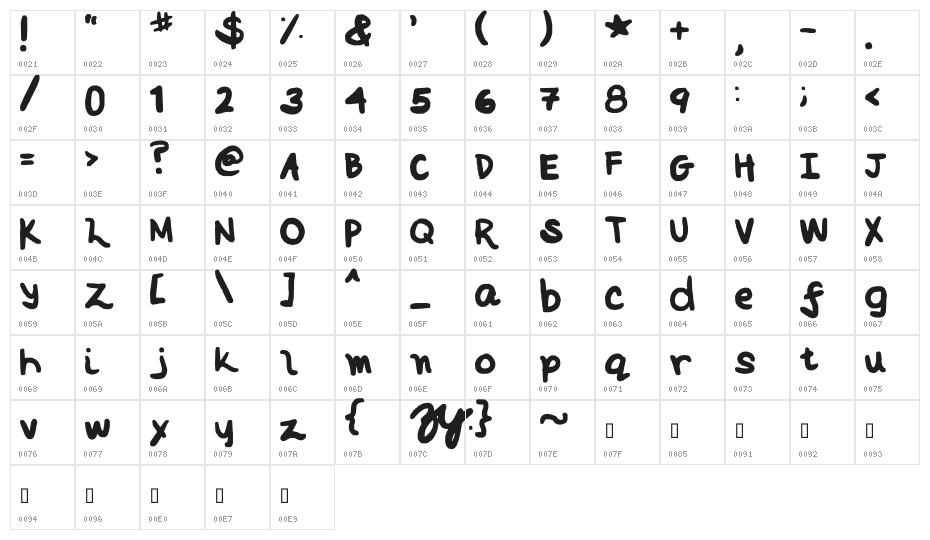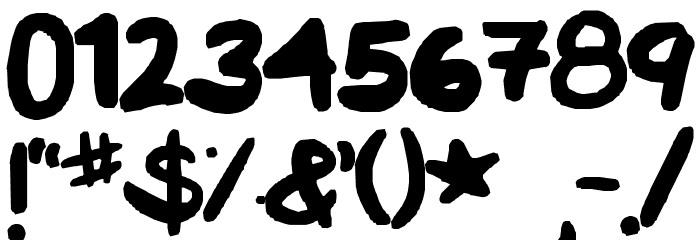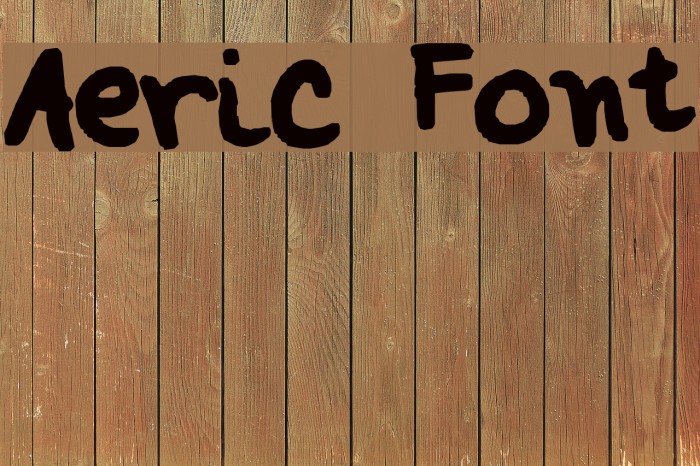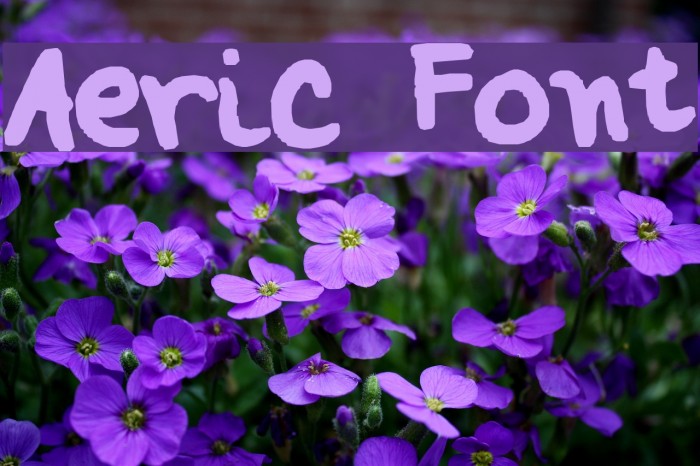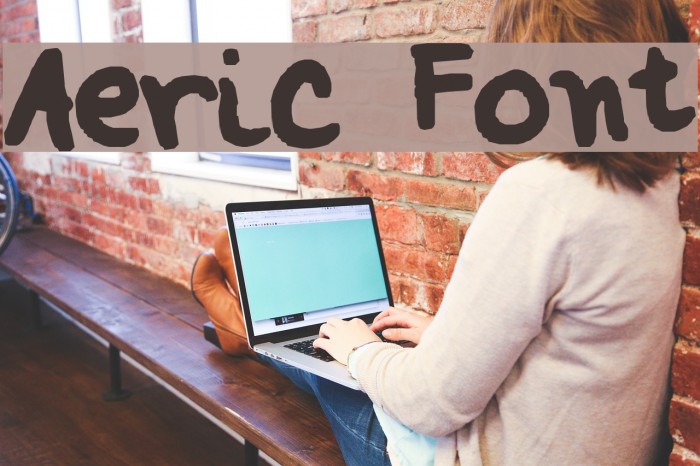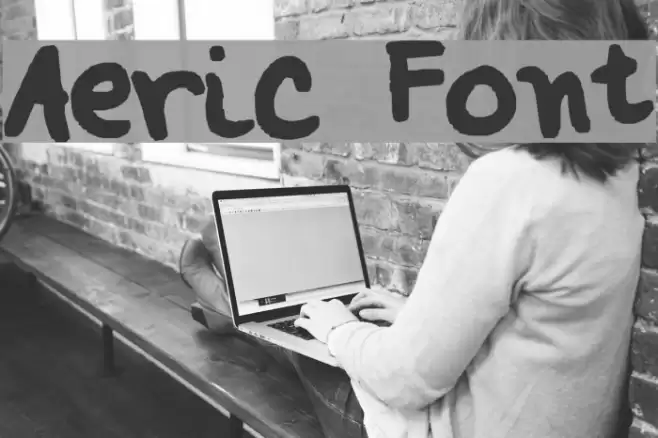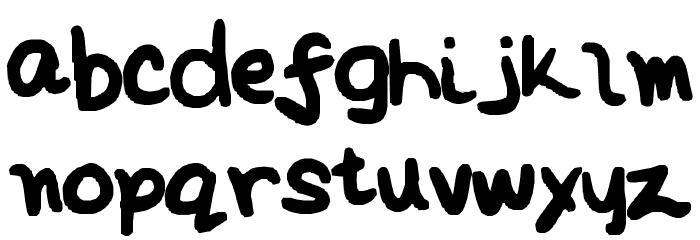
Aeric Font
Aeric Description
This playful and bold font features a handwritten style with a casual and friendly appearance. The letters are thick and rounded, giving them a soft and approachable feel. The strokes are uneven, adding to the informal and whimsical nature of the design. The characters are closely spaced, enhancing the compact and cohesive look. This font is ideal for projects that require a fun and lively touch, such as children's books, playful branding, or creative posters. Its unique style makes it stand out, while still maintaining legibility.
| Overall Style | Playful |
| Proposed Projects | Children's books, playful branding, creative posters, informal invitations. |